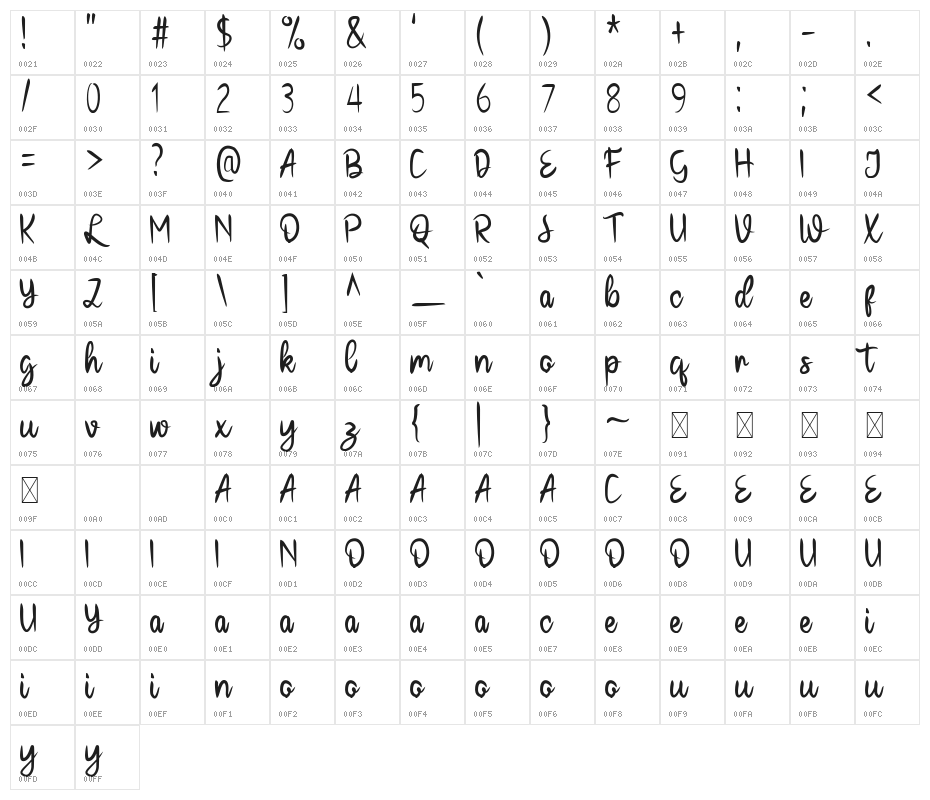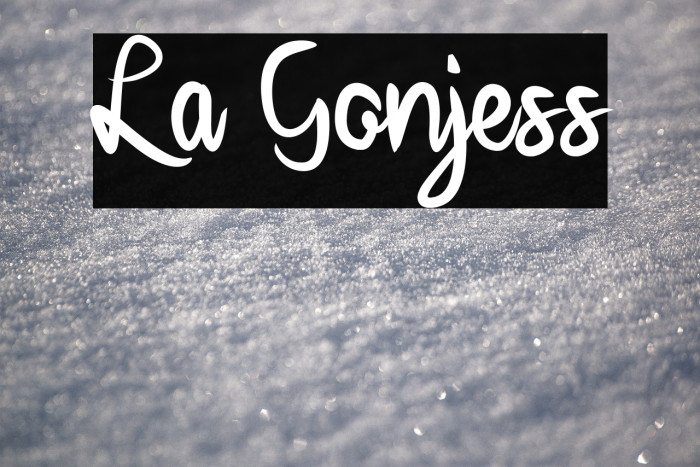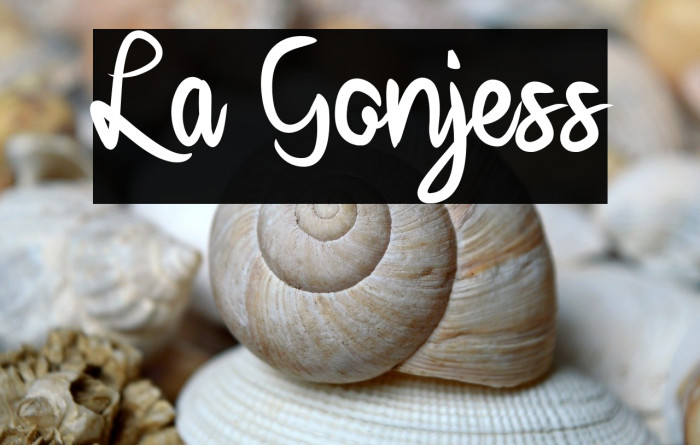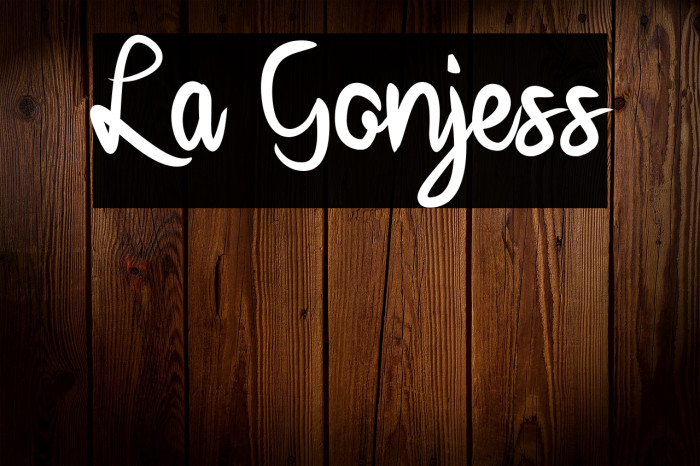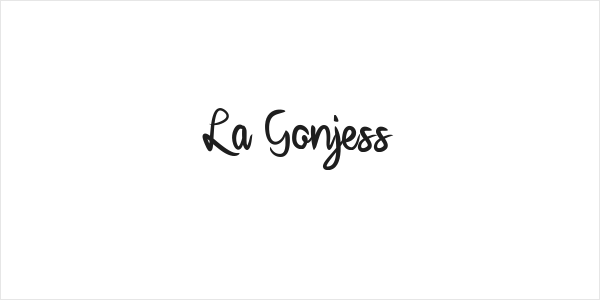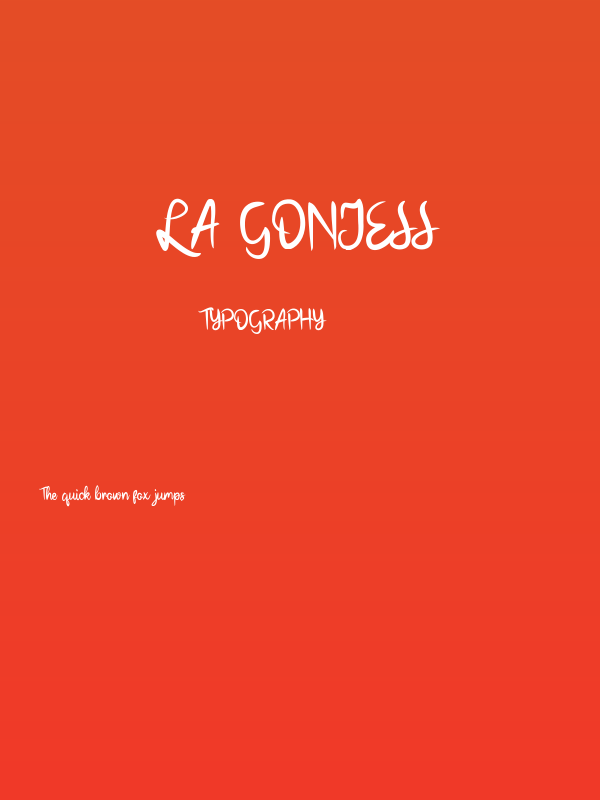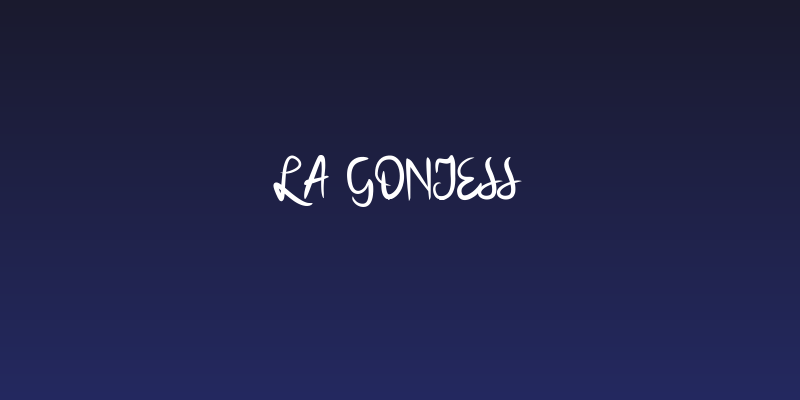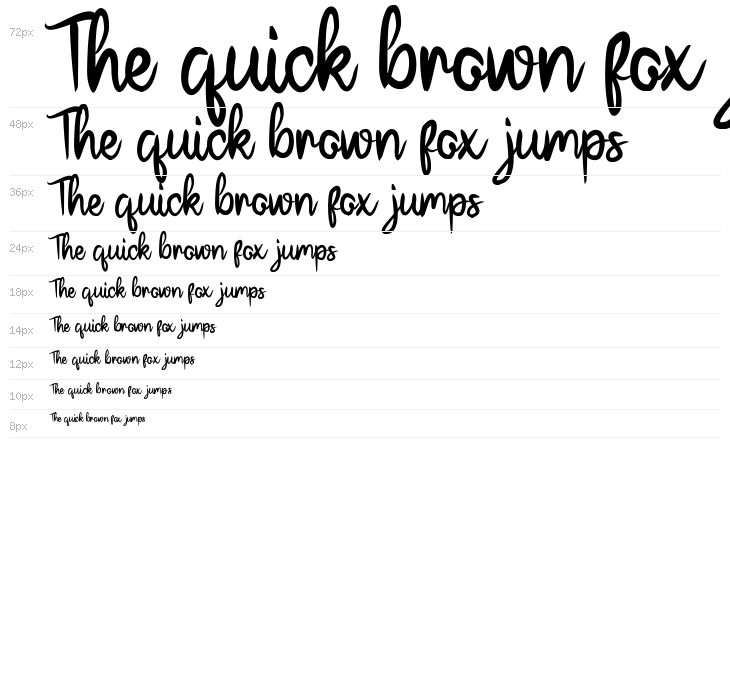
La Gonjess Font
La Gonjess Description
This font features a playful and dynamic handwritten style, characterized by its fluid and slightly irregular strokes. The uppercase letters are bold and expressive, with a noticeable slant that adds a sense of motion. The lowercase letters maintain a consistent flow, complementing the uppercase with their rounded and connected forms. Numerals are clear and legible, matching the overall style with their smooth curves. Special characters are creatively integrated, maintaining the font's lively aesthetic. The font's energetic and informal appearance makes it ideal for projects that require a personal touch.
| Use Case | Logos, Headlines, Informal Text |
| Proposed Projects | Greeting cards, invitations, personal branding, social media graphics, and playful packaging designs. |